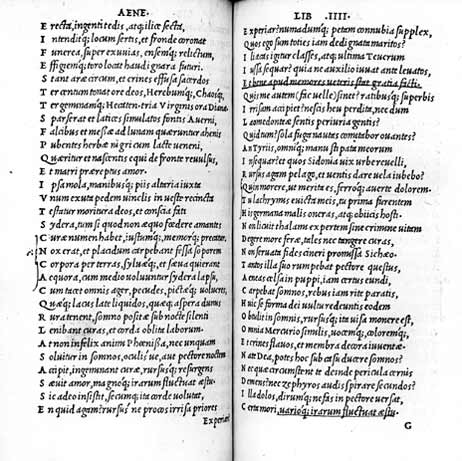
Aldus Manutius introduced italics as a lowercase typeface with Virgil’s Opera printed in 1501. The typeface, designed by Francesco Griffo (c1450-1518), was based on Humanistic cursive and retrained roman caps.